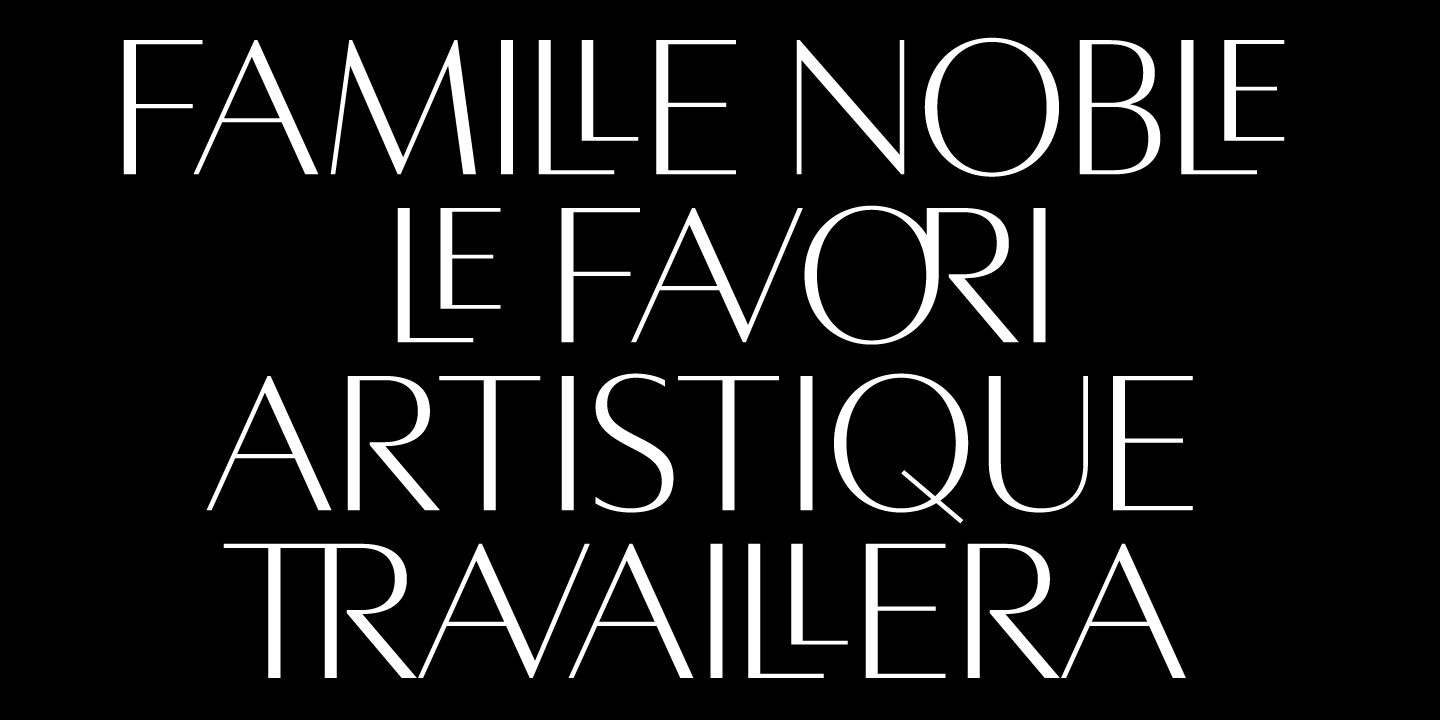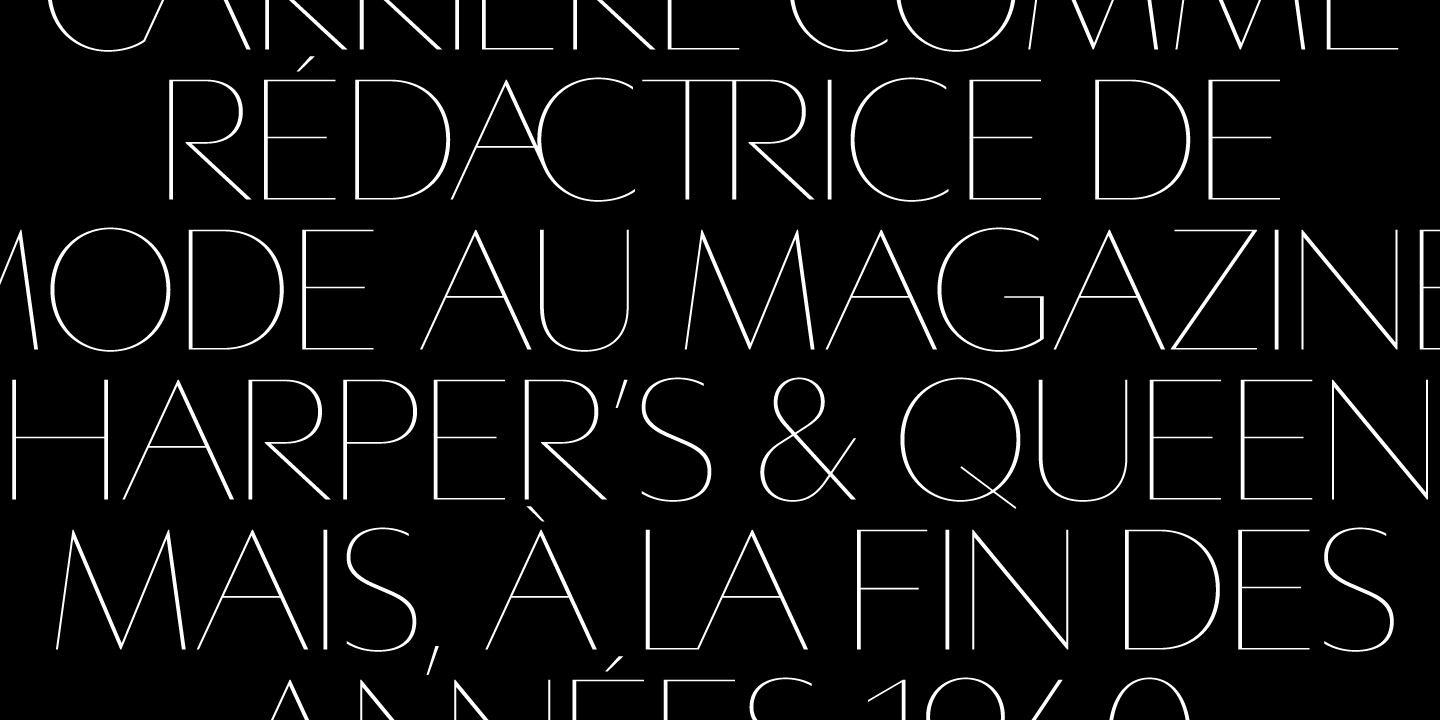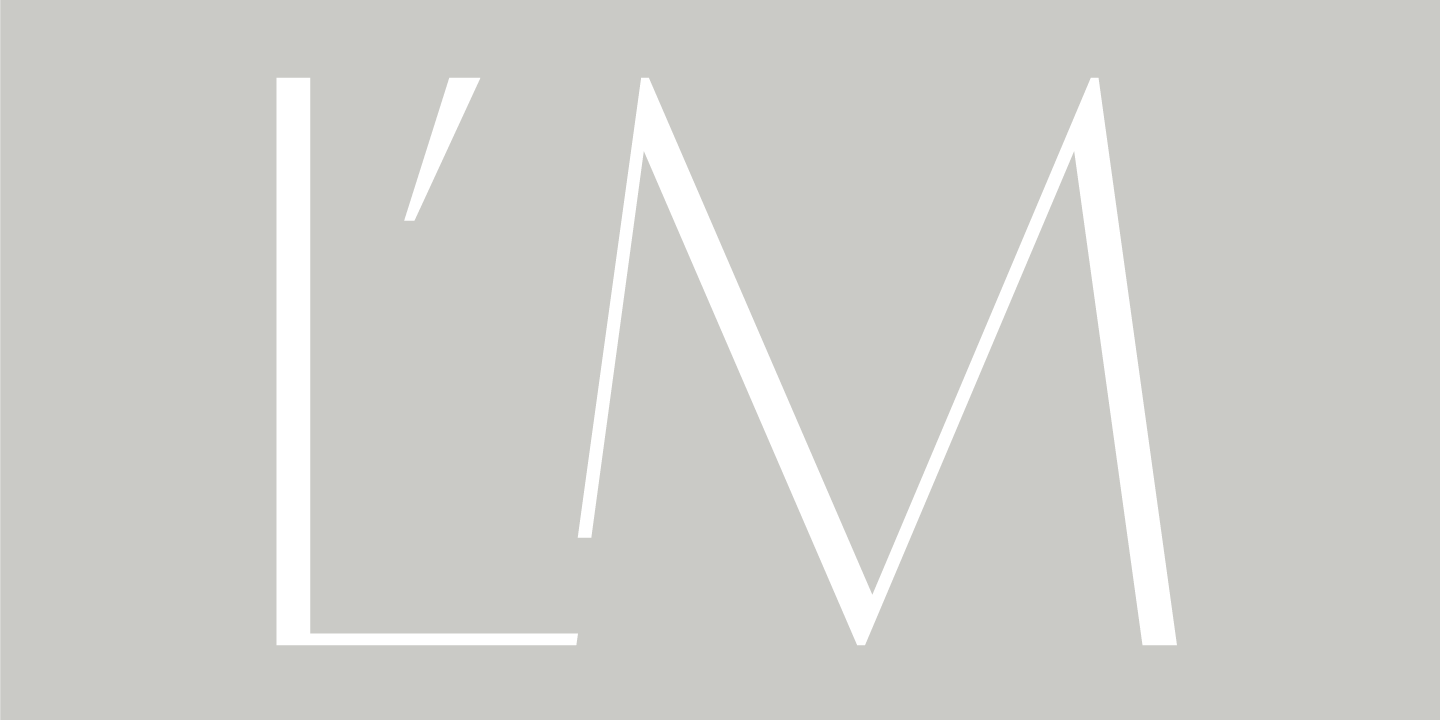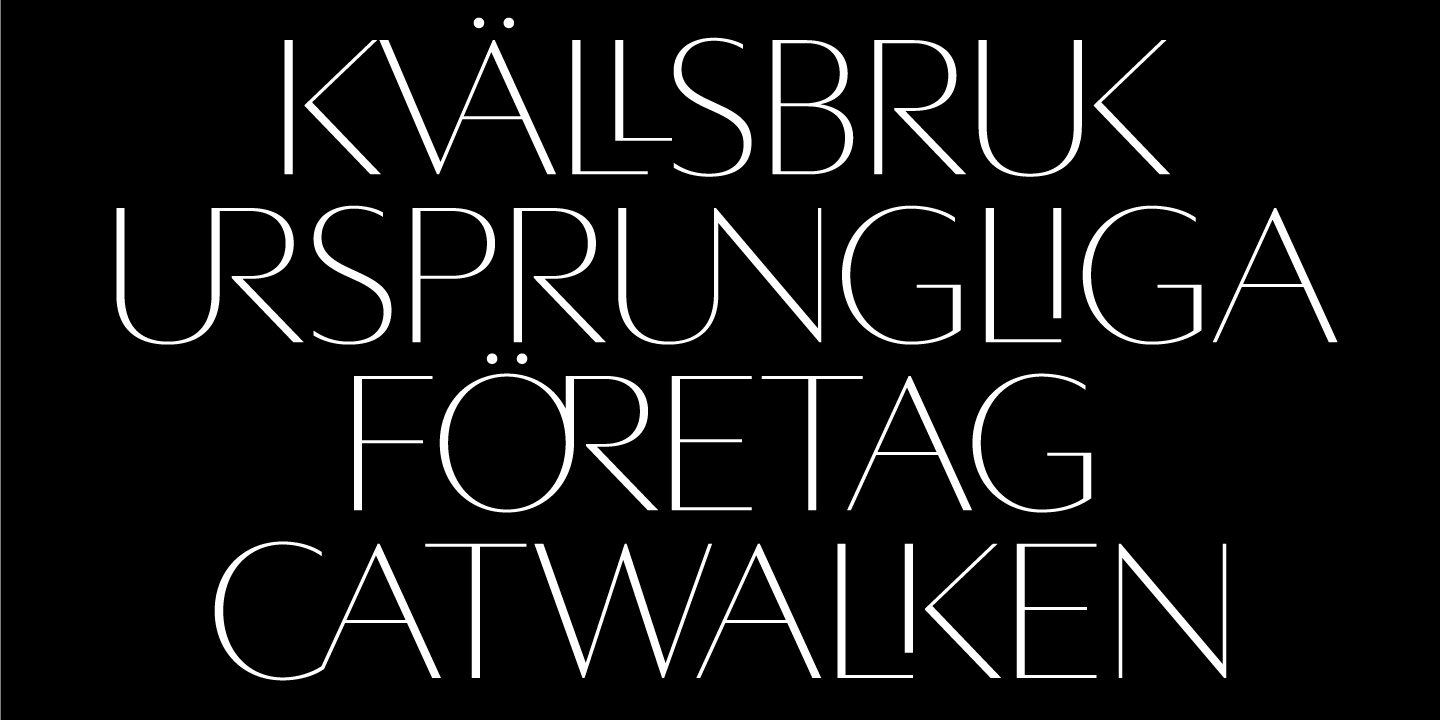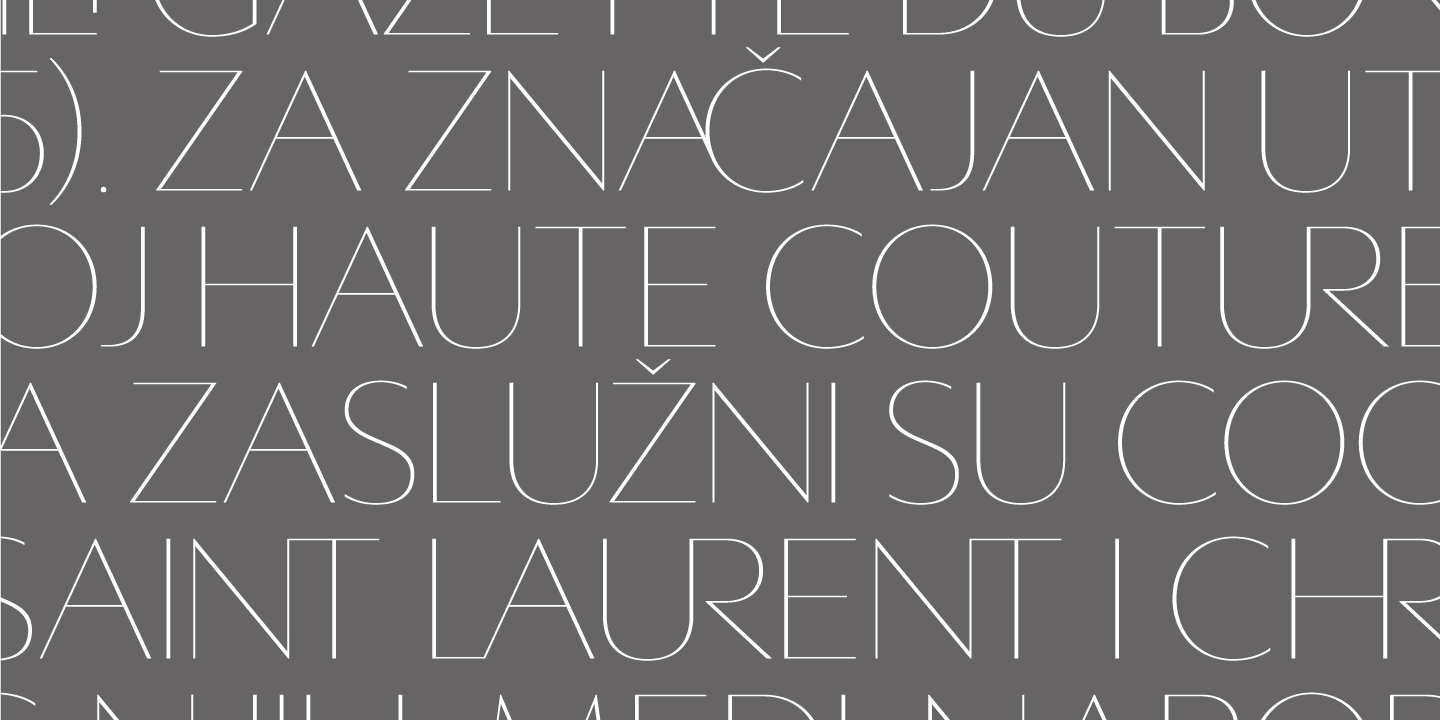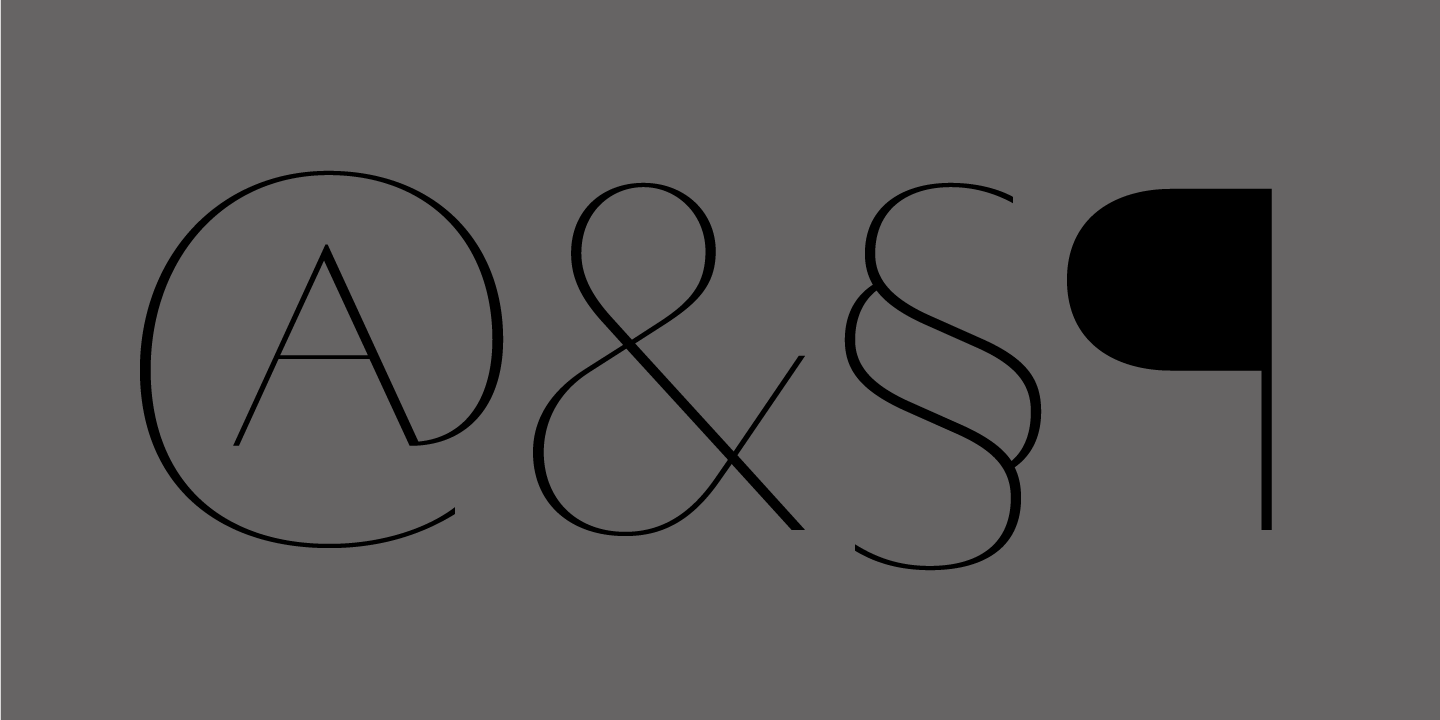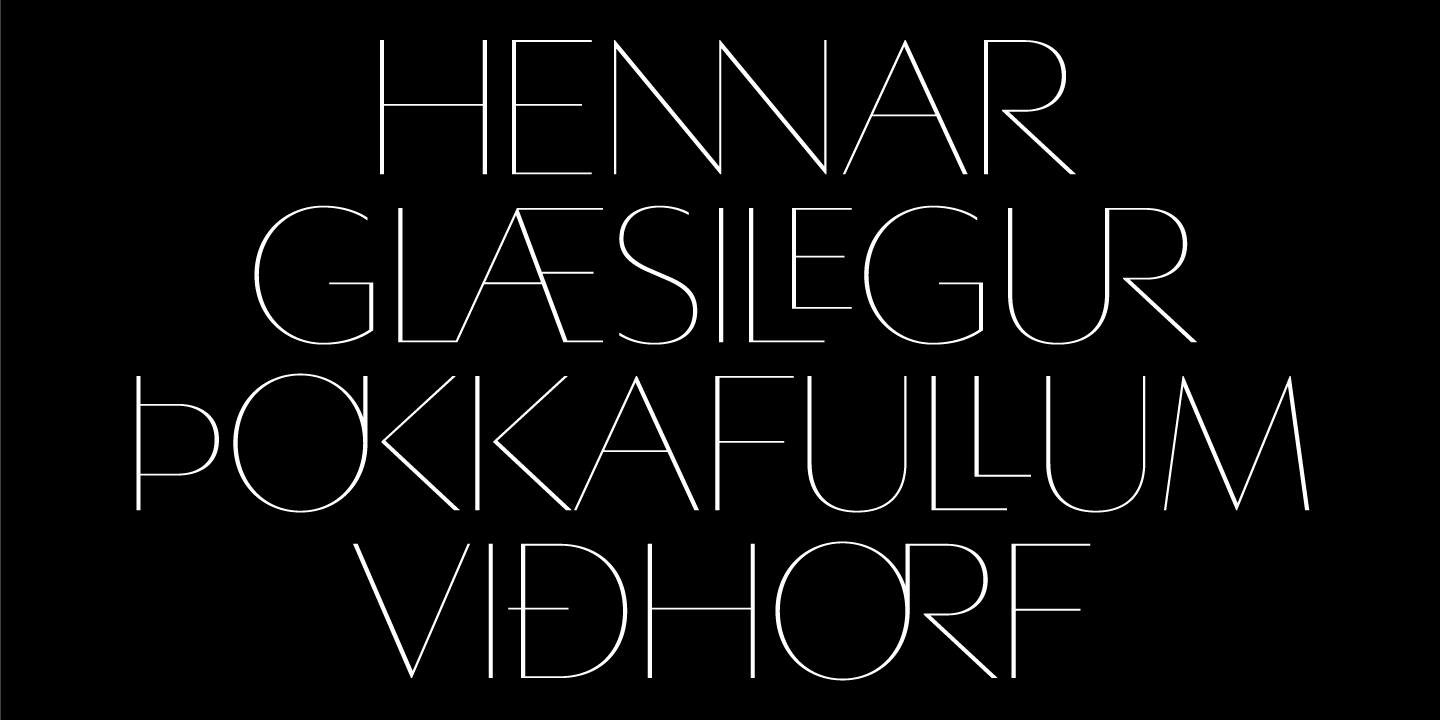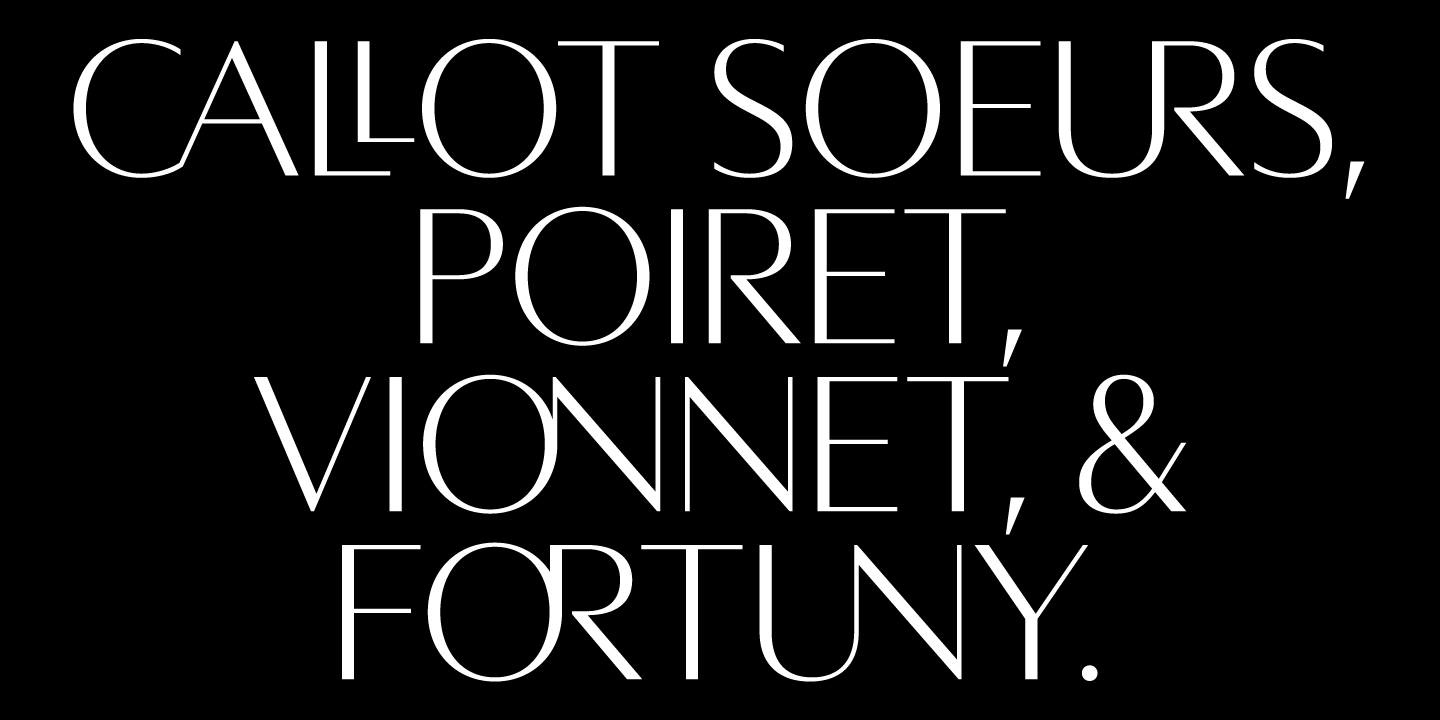
Averes Title Roman Complete
Font Family by AE Type
Features include:
- Discretionary ligature feature
- Romanian s accent language feature
- Dutch IJ language feature
- Polish kreska language feature
- Slashed zero
- Ordinals feature